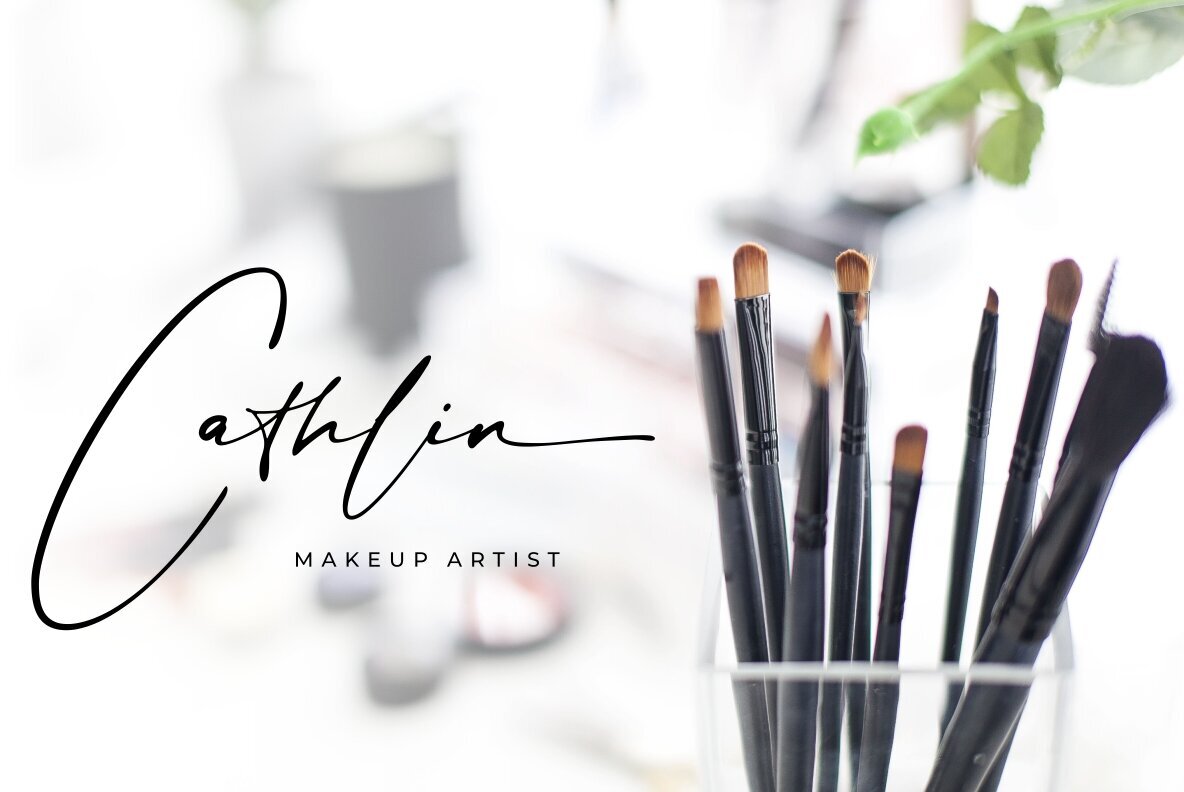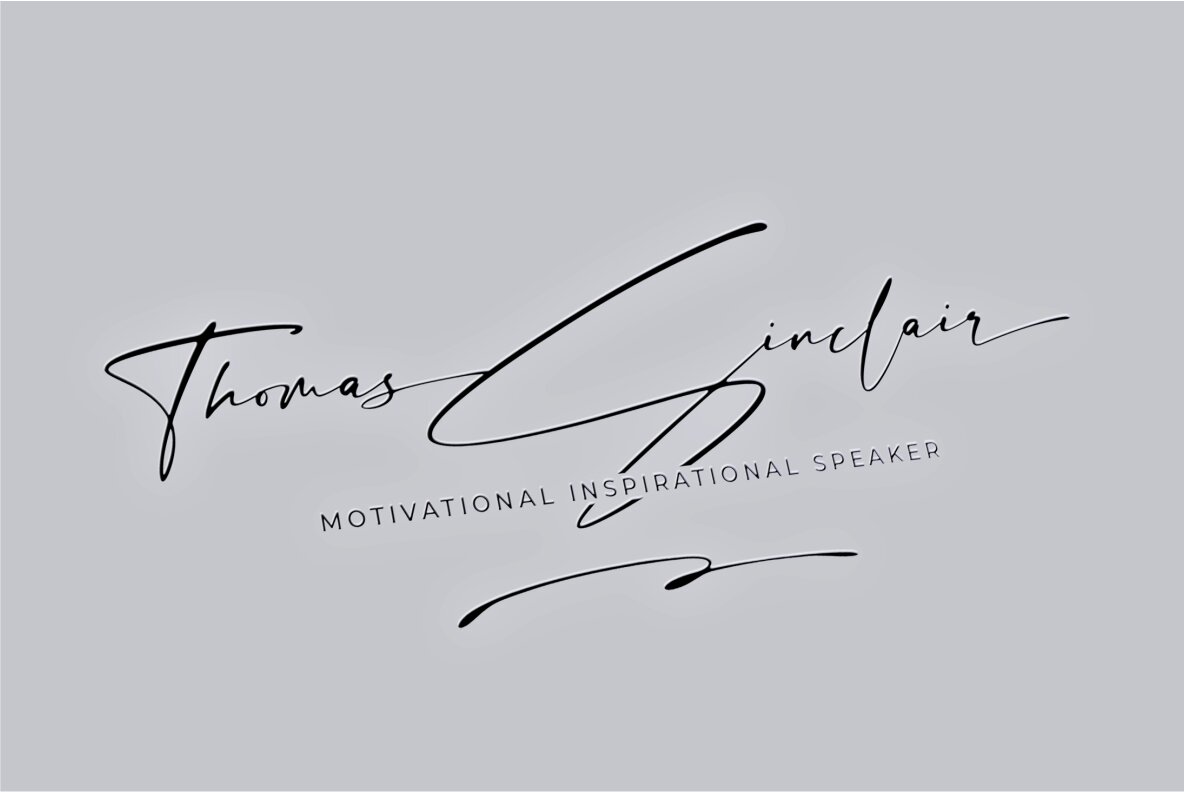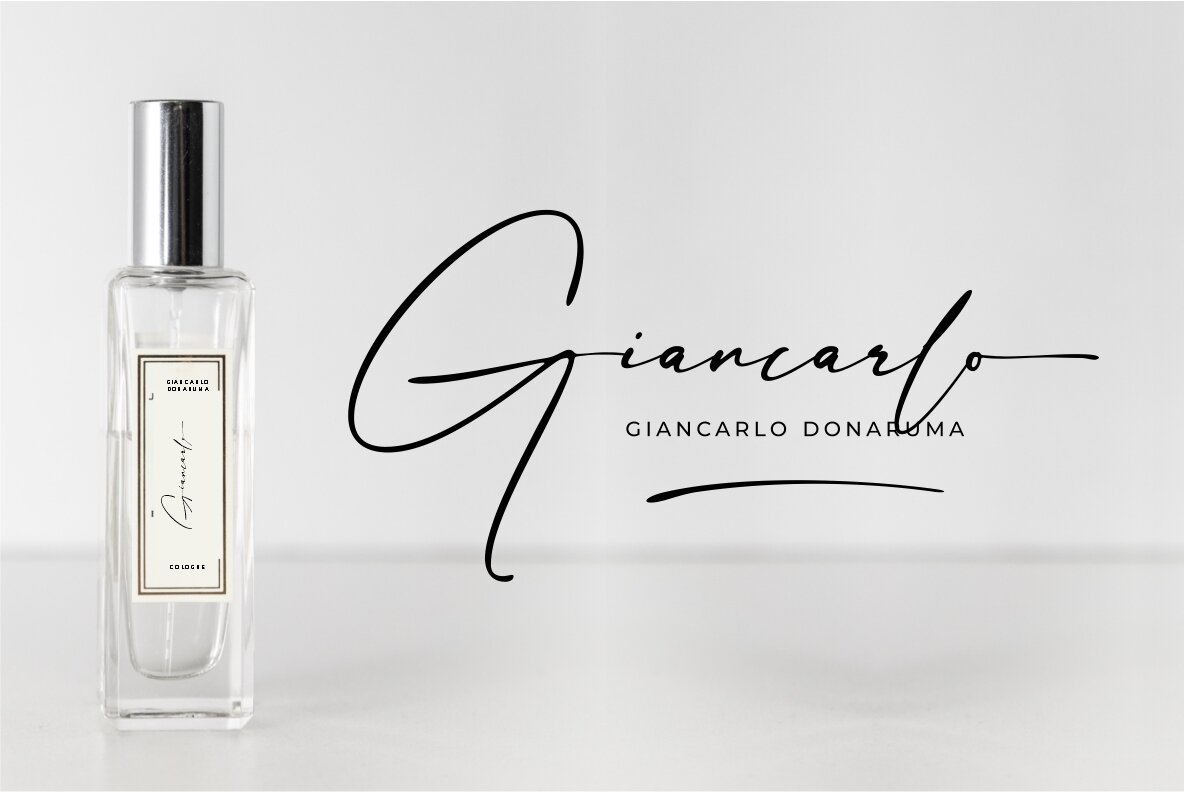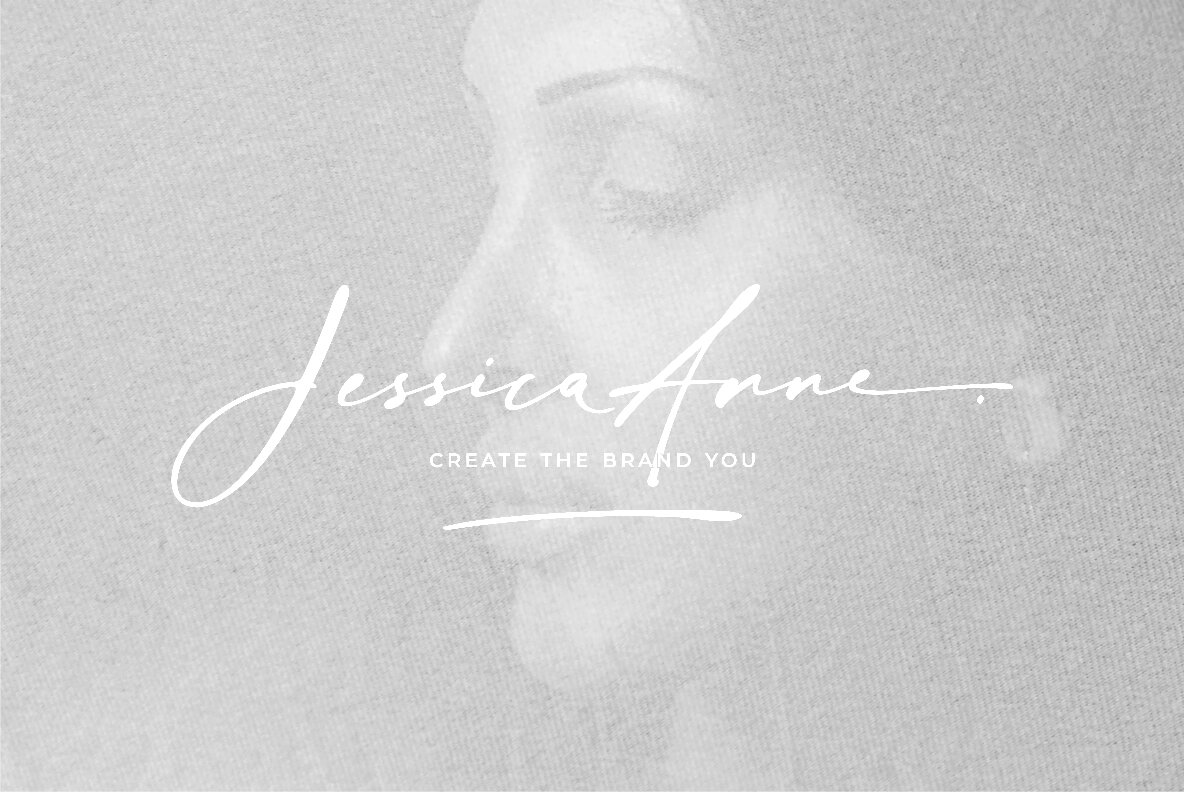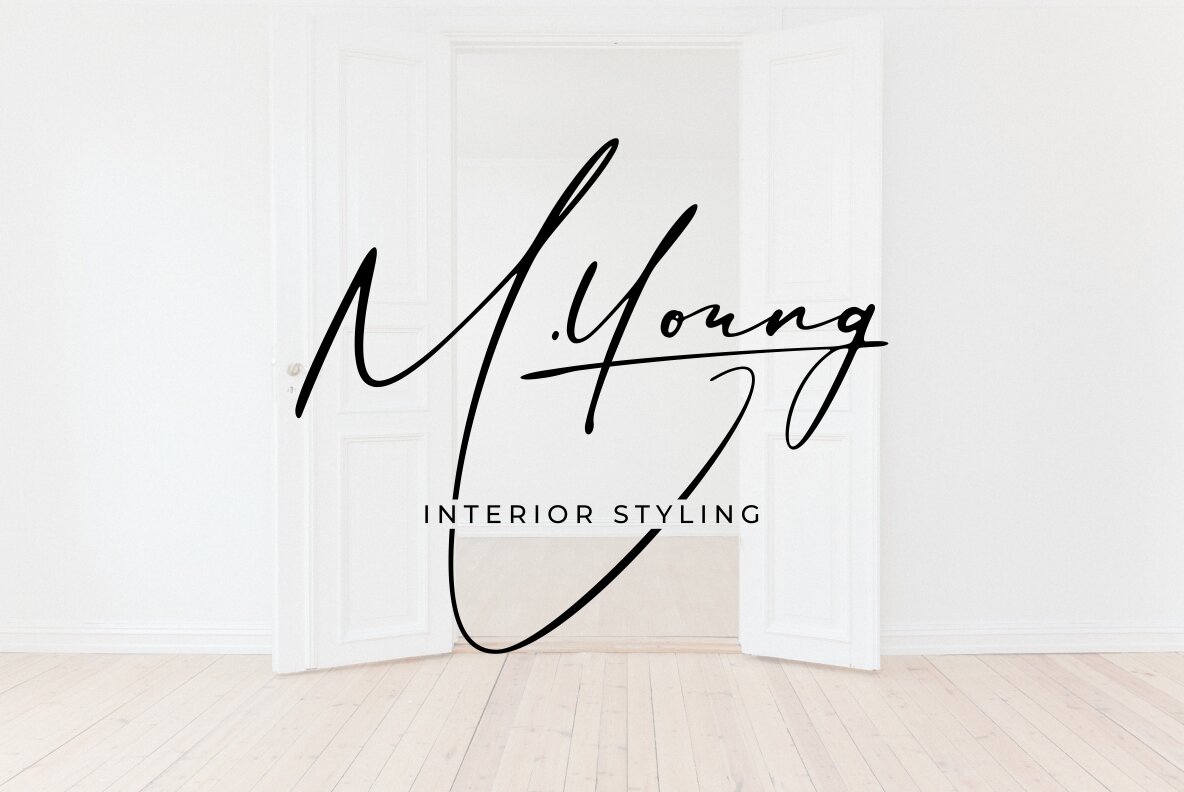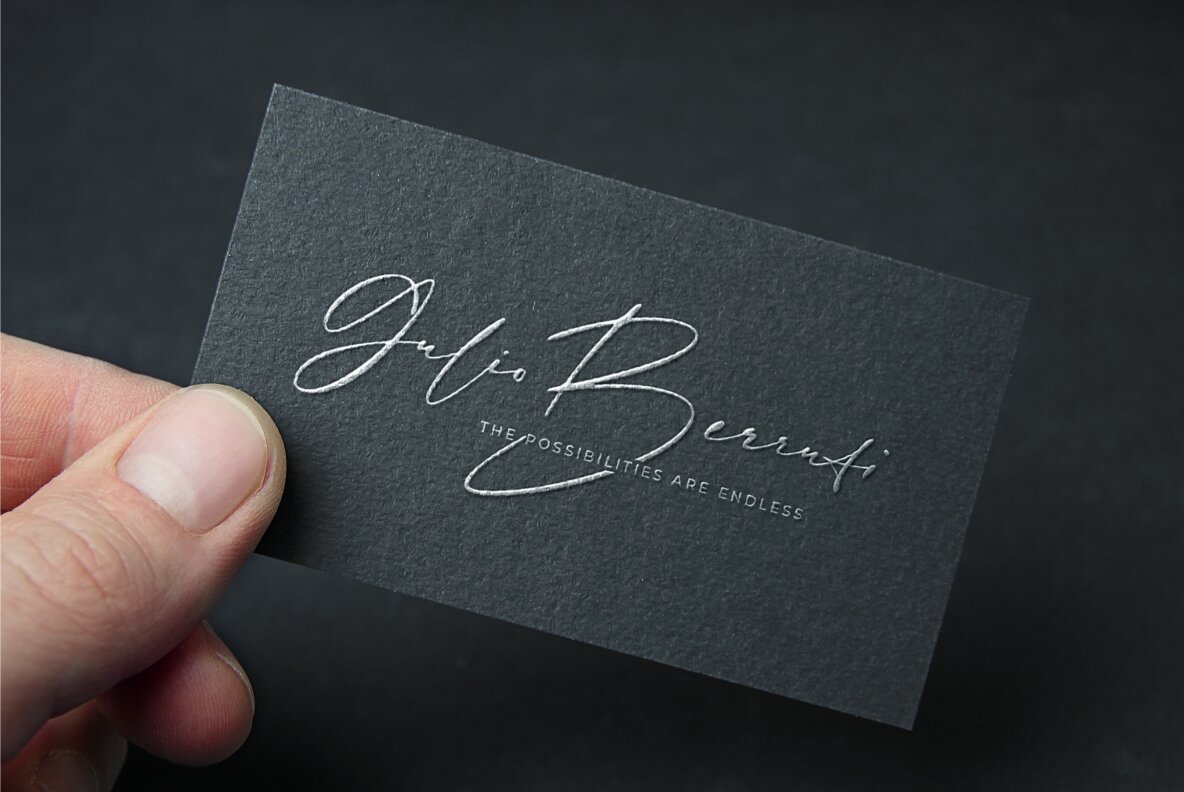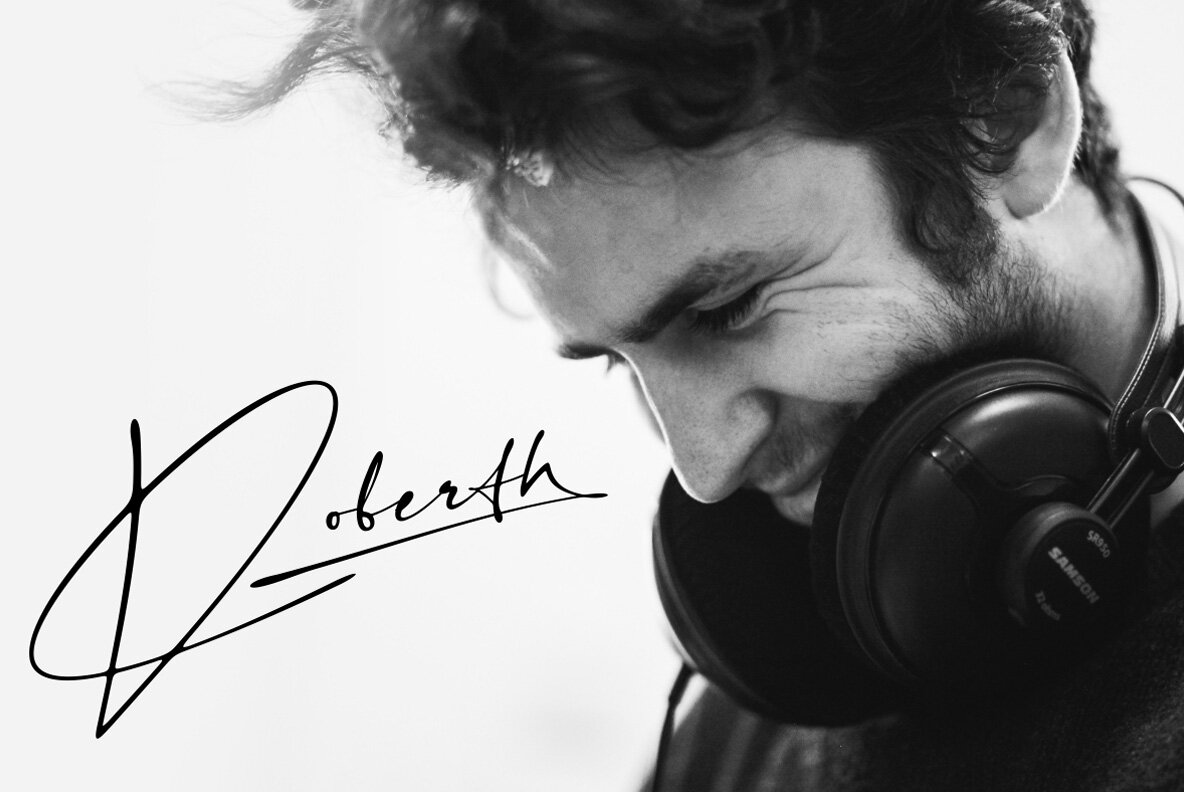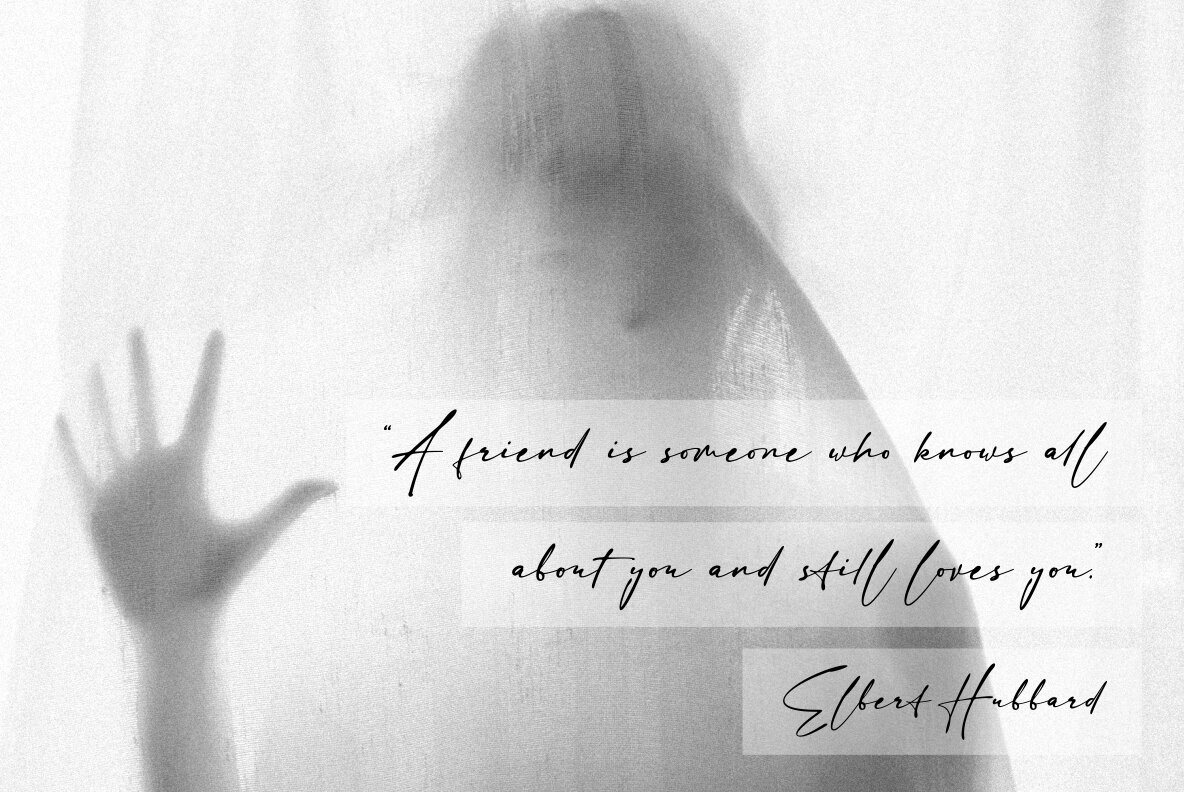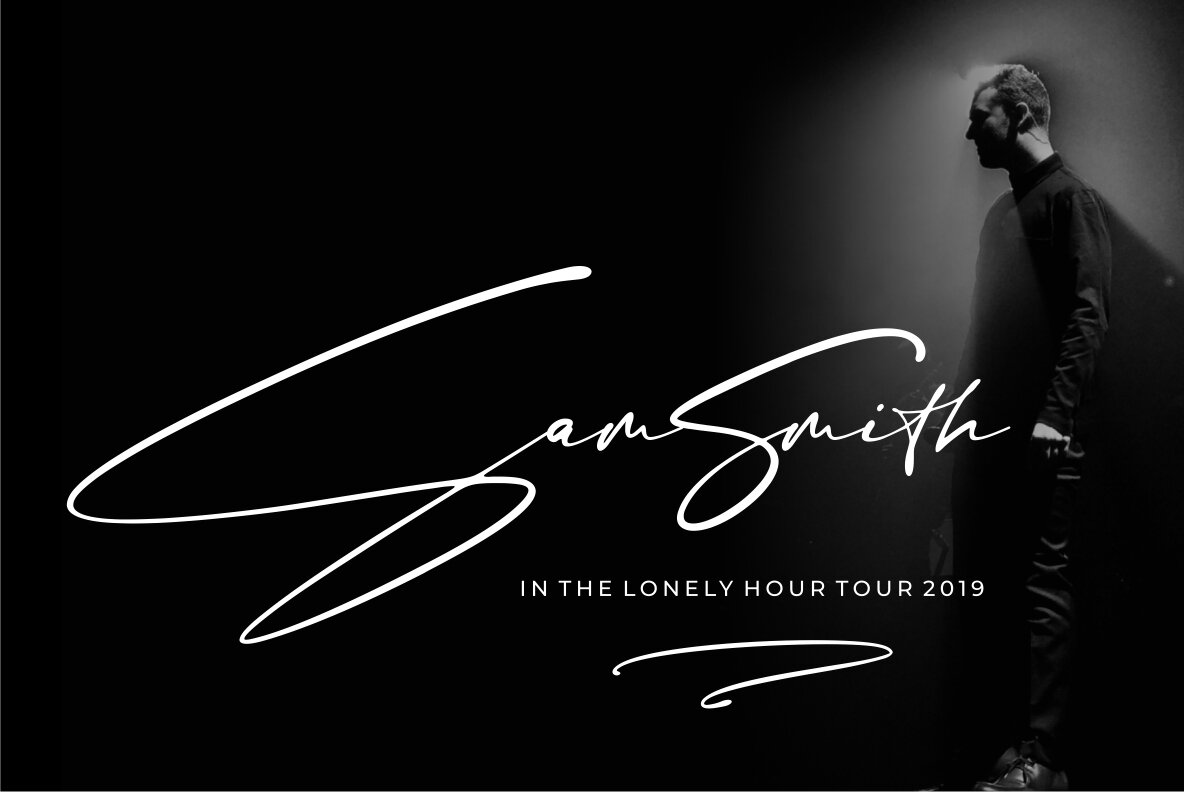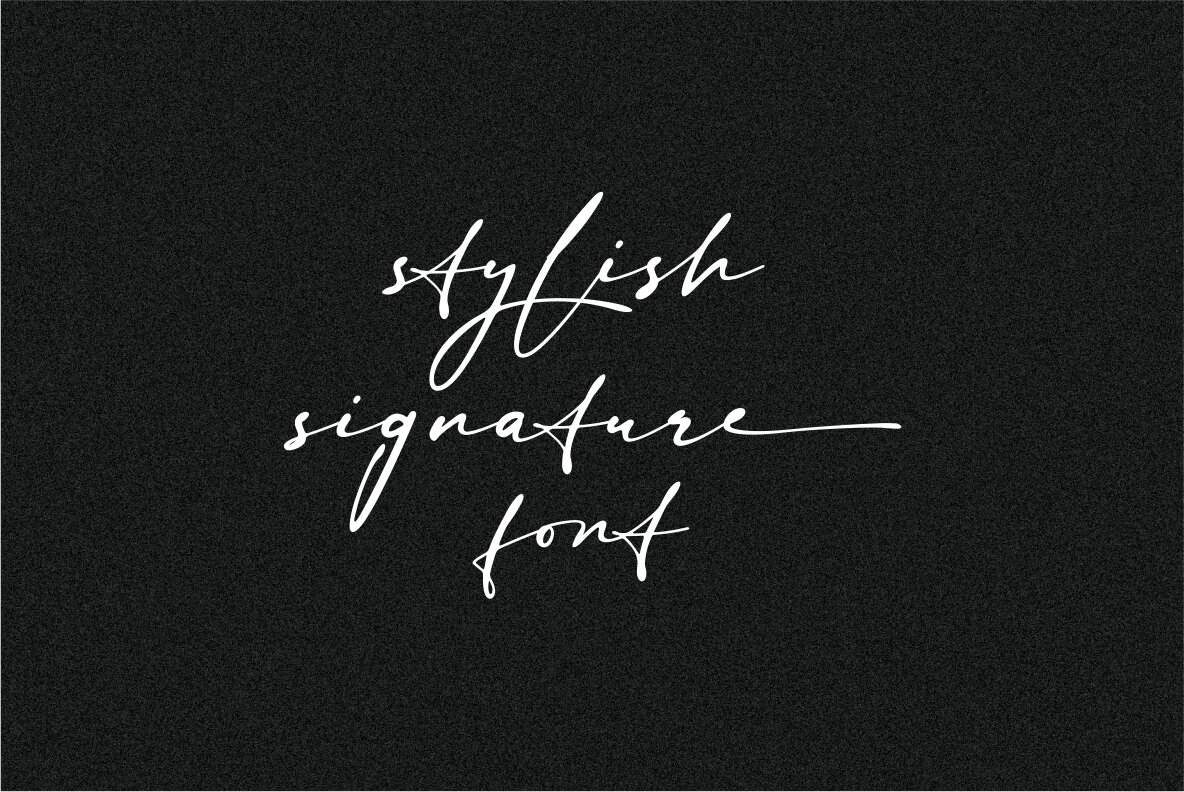
Sign Style Font
Sign Style Regular
Sign Style offers a sophisticated, hand-drawn aesthetic that infuses personal touch into modern design. Ideal for signature logos, branding, packaging, and advertising, this font features easily adaptable capital initials that emulate a natural signature style. Sign Style distinguishes your brand as both friendly and unique, allowing it to stand prominently in any market.Sign Style: Elegant Signature Font